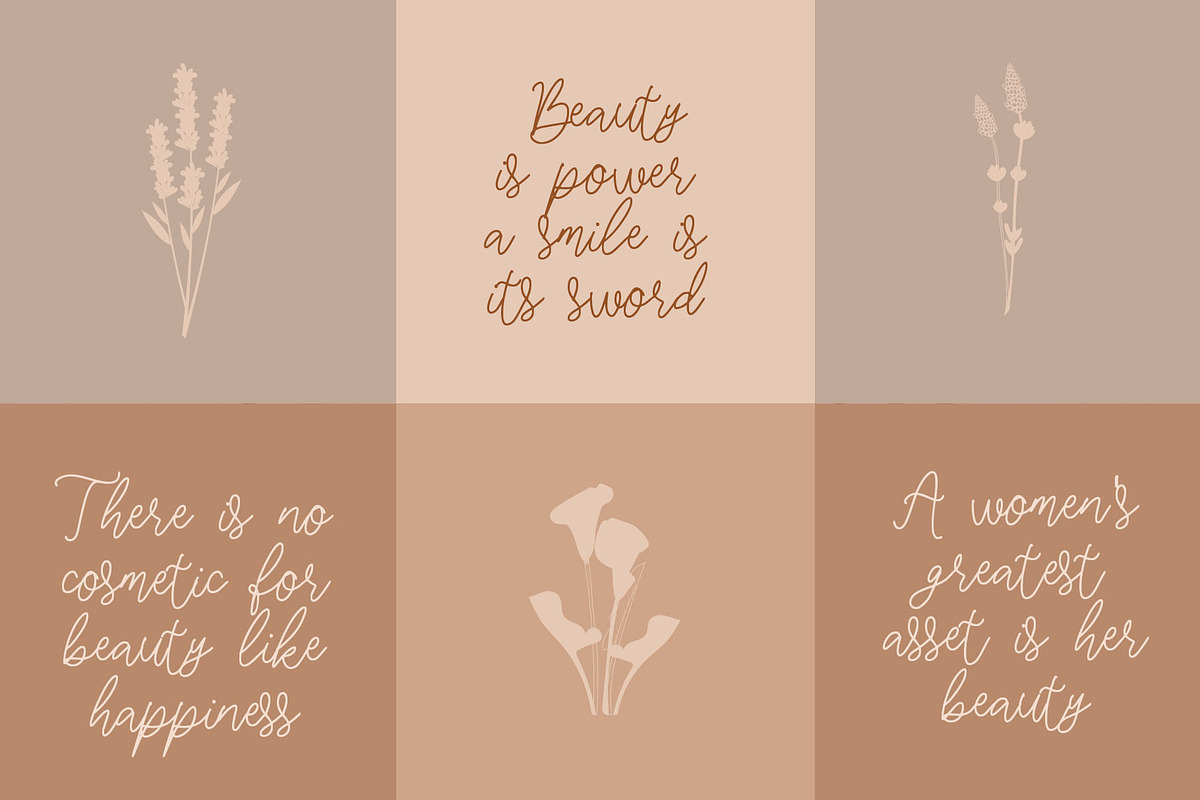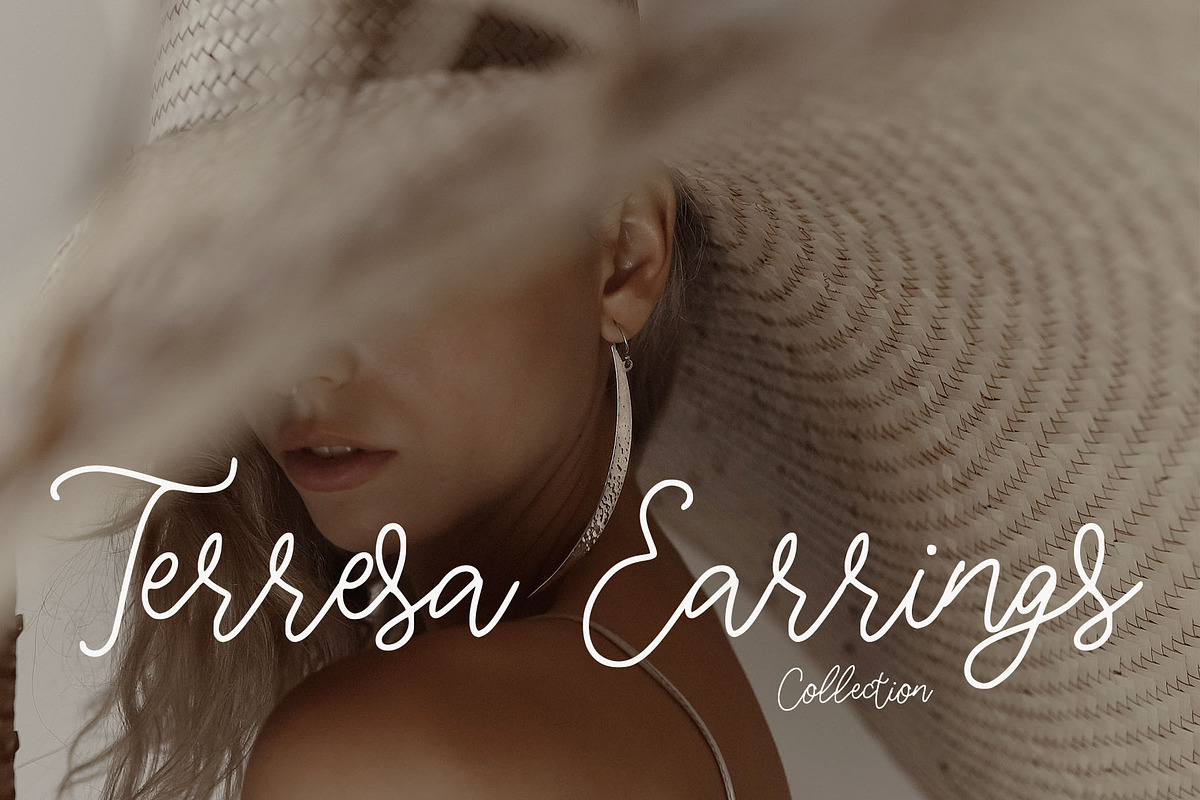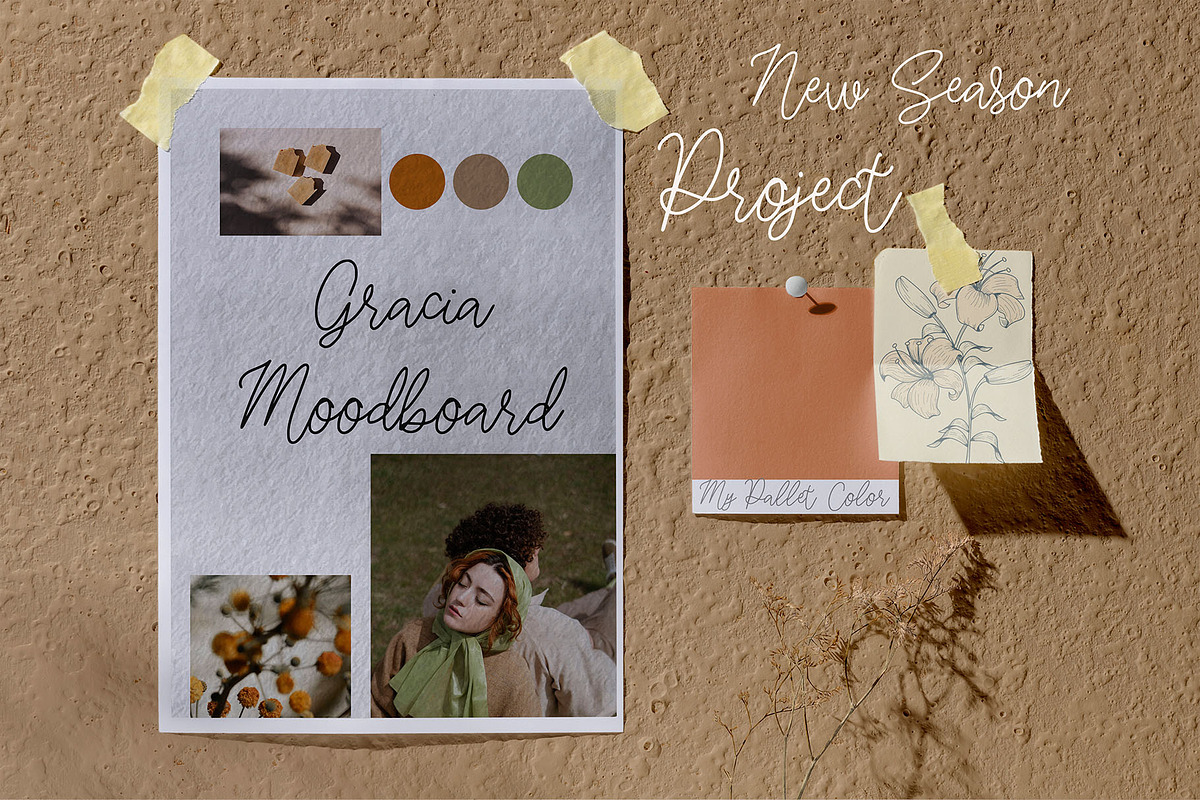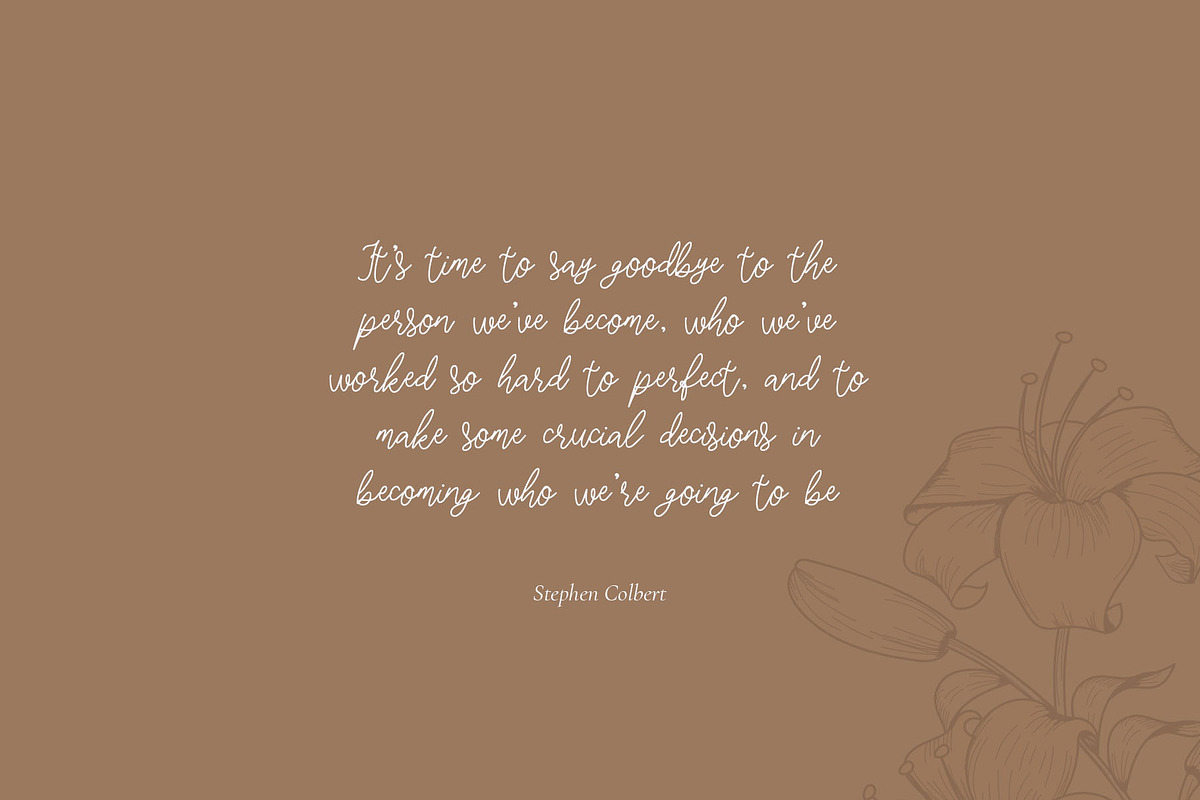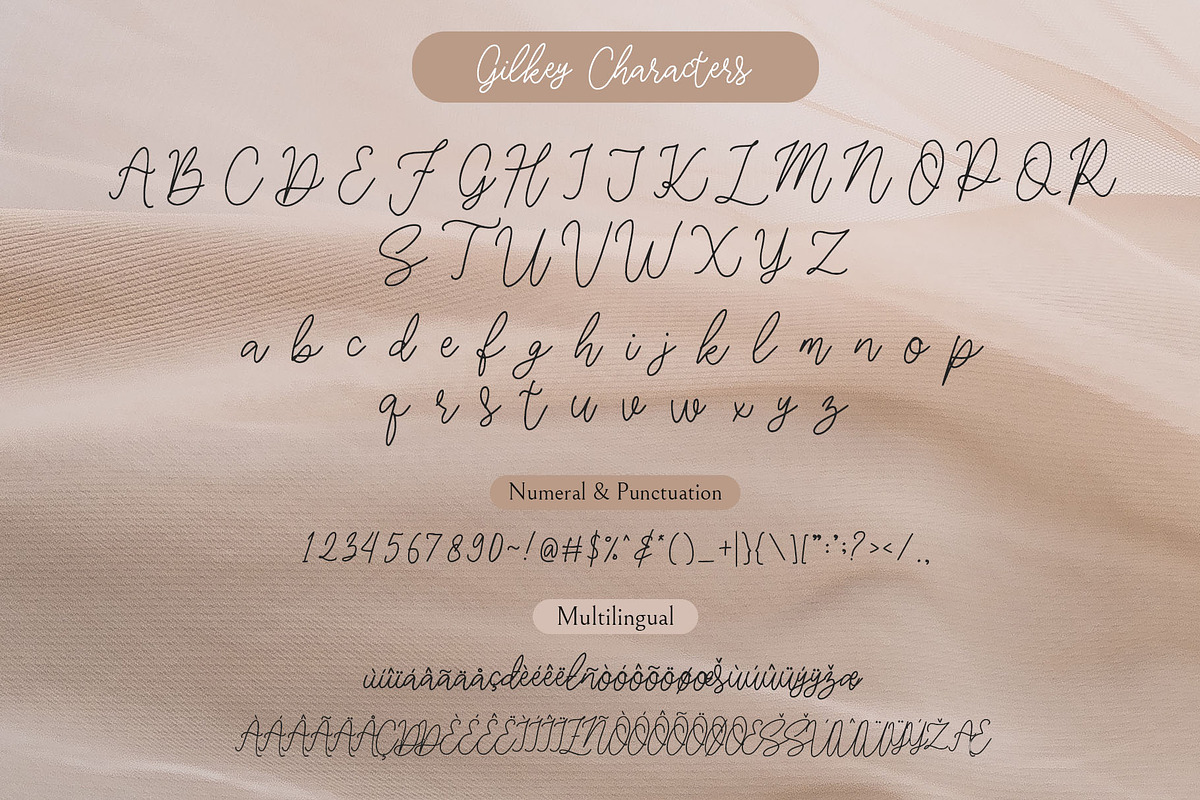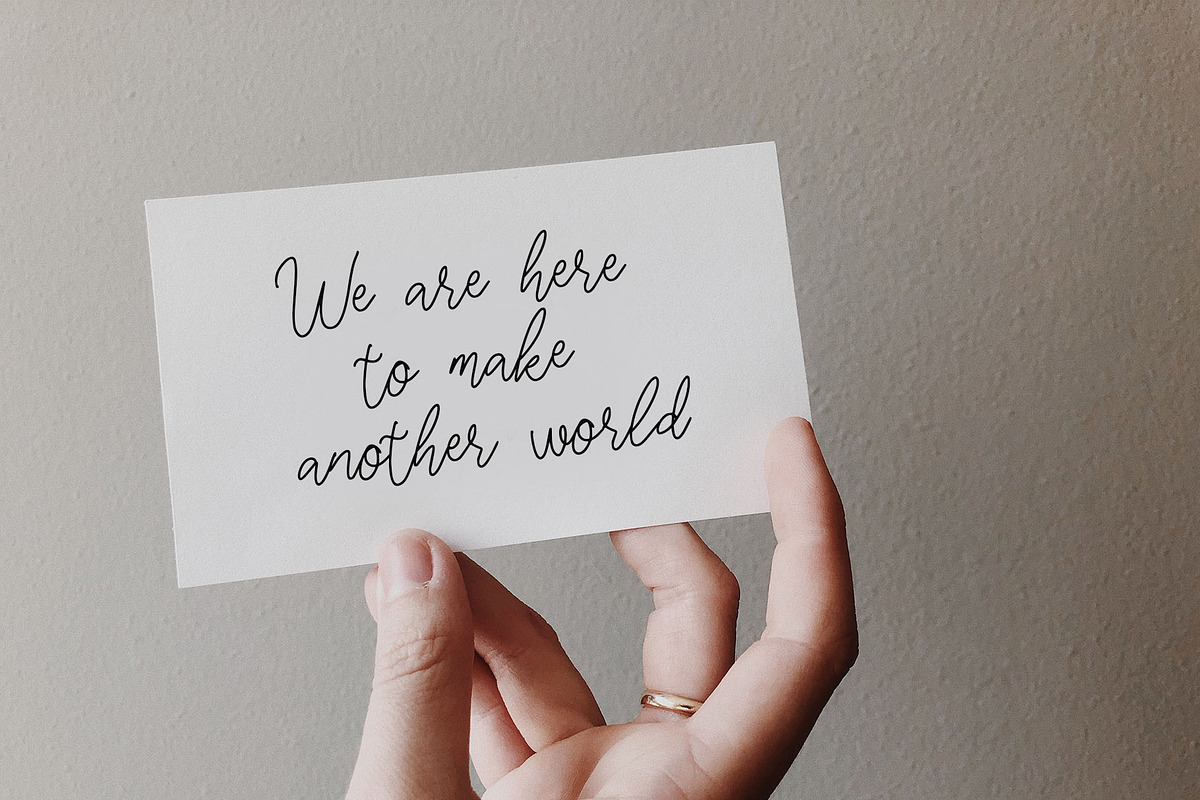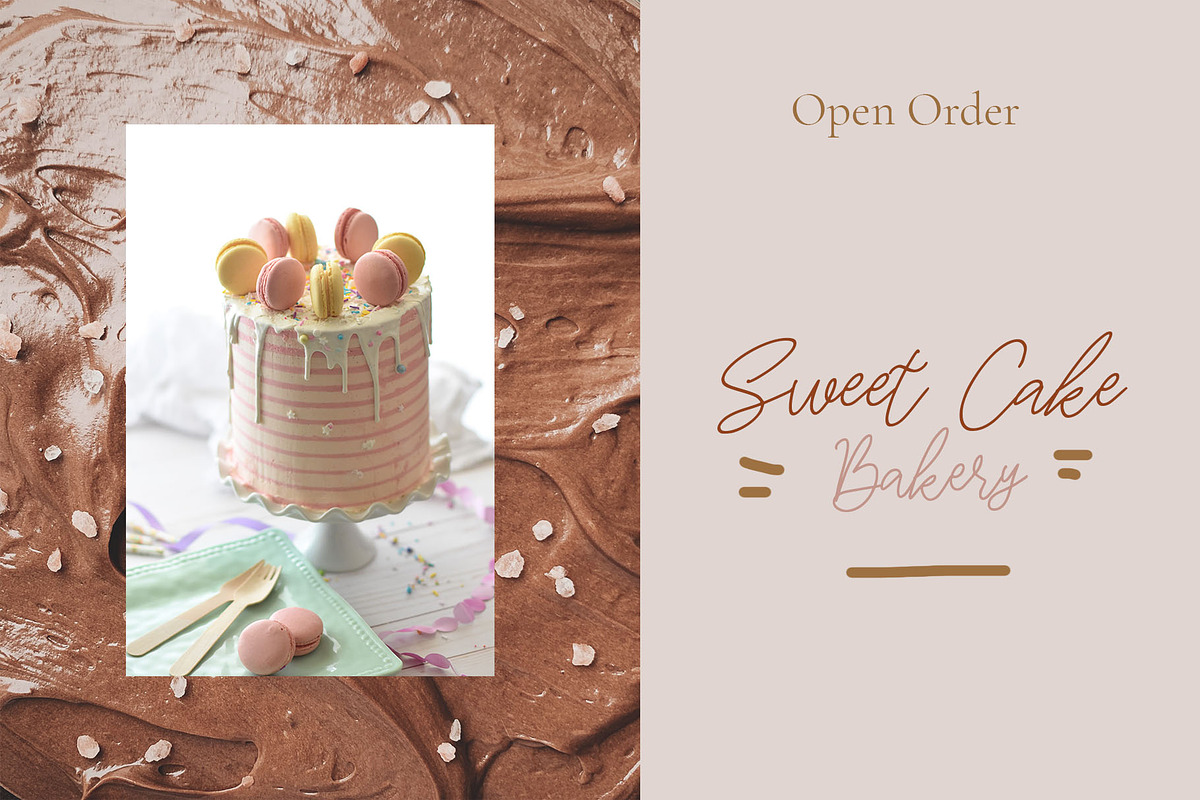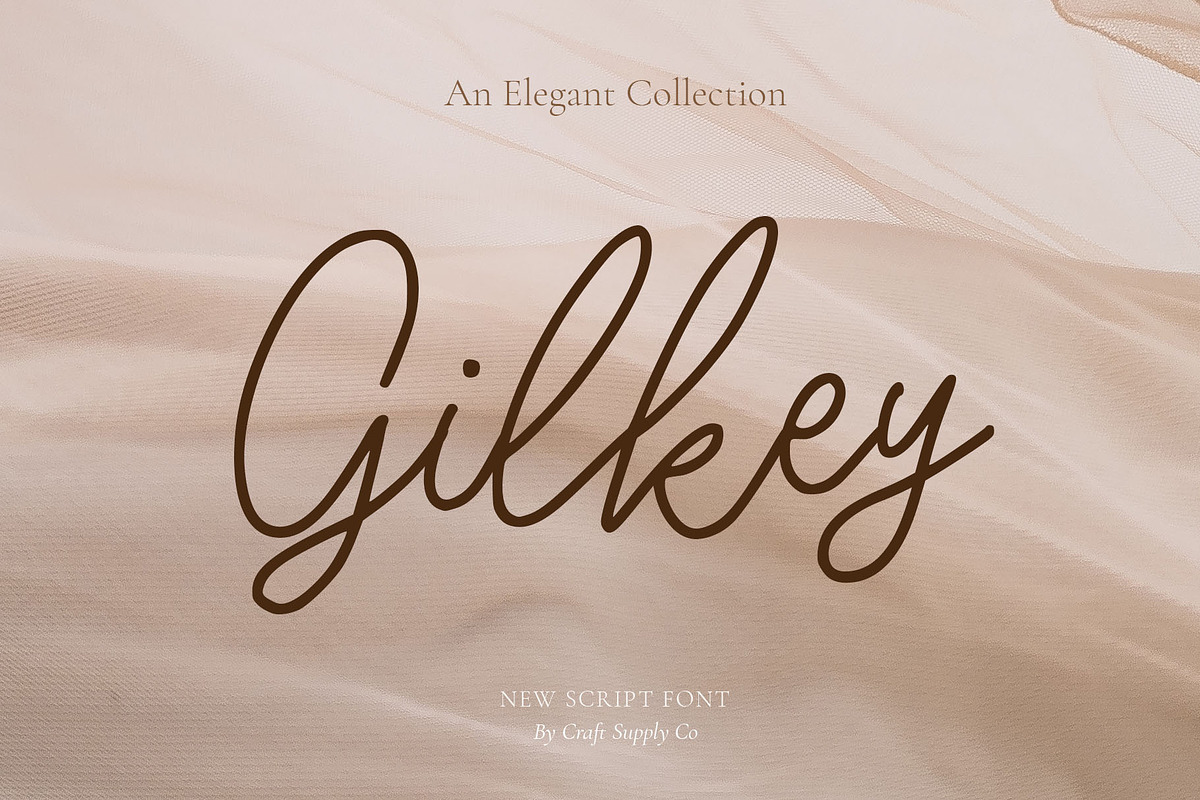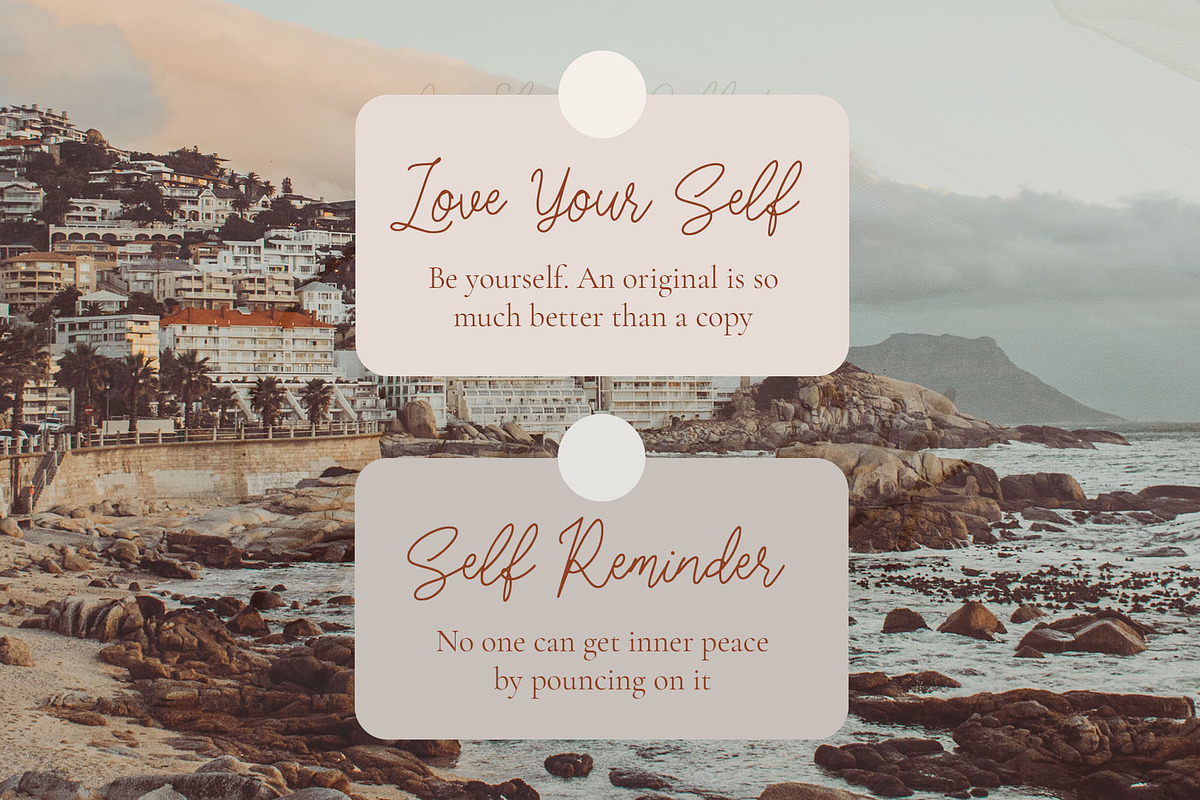
Gilkey - Elegant Script
🌻 Introducing New Font : Gilkey - Elegant Script 🌻
Gilkey - Elegant Script is a moniline script font with handwriting style. Gilkey - Elegant Script will work perfectly for fashion, e-commerce brands, trend blogs, wedding boutiques or any business that wants to appear upscale and chic.
Gilkey - Elegant Script also Suitable for Logo, greeting cards, quotes, posters, branding, name card, stationary, design title, blog header, art quote, typography, art, modern envelope lettering or book design, happening style like handdrawn design or watercolor design theme, craft design, any DIY project, book title, or any purpose to make your art/design project look pretty and trendy.
- Accents/Multilingual characters (AÀÁÂÃÄÅCÇDÐEÈÉÊËIÌÍÎÏNÑOØÒÓÔÕÖUÙÜÚÛWYÝŸỲŸÆŒßÞ)